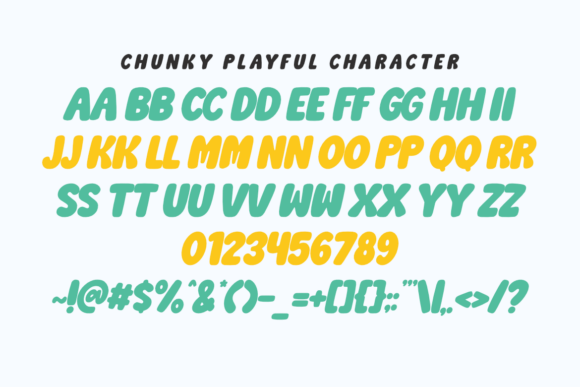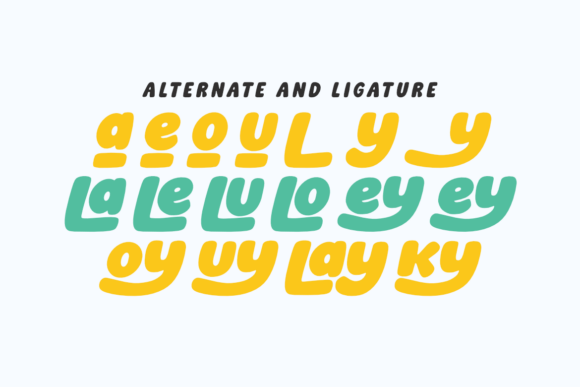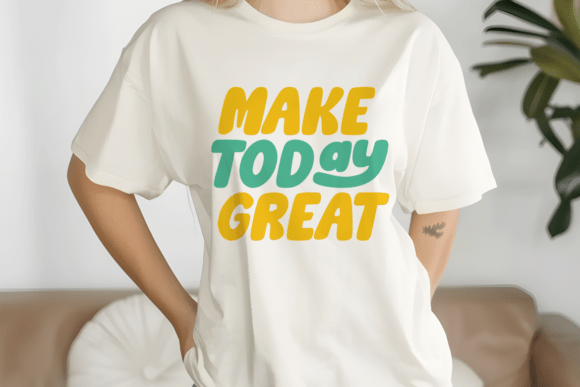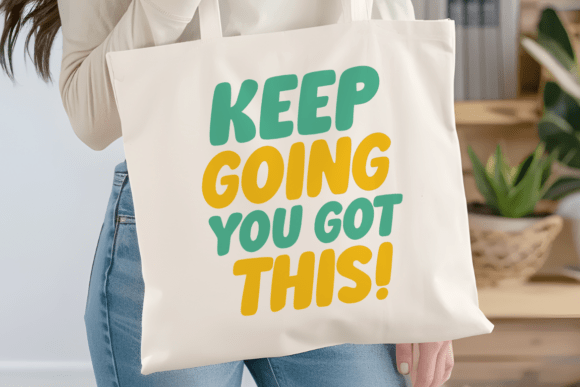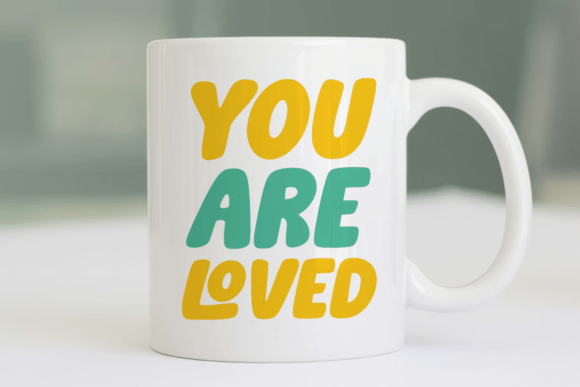
Introduction to Chunky Playful Font
As designers, we’ve all been there – staring at a blank canvas, struggling to bring our ideas to life. But what if you had the perfect tool to make your creative project stand out? Enter the Chunky Playful Font, a delightful and playful italic bubble display font that’s sure to captivate your audience.
This free download is a treasure trove of creativity, offering a high-quality design resource that’s perfect for creating eye-catching headlines, posters, and social media graphics. With its soft curves and bold appearance, the Chunky Playful Font is a versatile tool that can add a dreamy touch to any design. Whether you’re working on a personal project or a professional branding, this font is sure to bring a smile to your face and a wow factor to your design.
Key Features of Chunky Playful Font
- Unique, hand-drawn design ideal for creative projects and design resources.
- Features a transparent background, making it easy to customize and integrate into any design.
- Designed to be highly legible, even at larger font sizes, making it ideal for headings and titles.
- Resolution-independent, ensuring crisp and clear text at any size or resolution.
- Perfect for use in a variety of creative projects, including graphic design, digital art, and print media.
Honest Review: Chunky Playful Font
One of the standout features of this font is its high-quality design. The characters are well-crafted, and the lines are crisp and clean. It’s perfect for creative projects where you want to add a touch of whimsy and playfulness.
Here are some of the things that work well with the Chunky Playful Font: ✨
- It’s highly versatile and can be used in a variety of contexts, from logos to graphics to headings.
- The font is available in various weights, which makes it easy to adjust the look and feel of your design.
- It’s perfect for designs that require a lot of texture and depth.
- The font may not be suitable for designs that require a lot of precision and accuracy.
- The font may not work well on transparent backgrounds, as the characters may not be as visible.
Overall, I’m really impressed with the Chunky Playful Font. It’s a high-quality design resource that’s perfect for creative projects. I highly recommend it to anyone looking for a fun and playful font.
Tips for Getting the Most Out of Chunky Playful Font
For optimal results, pair Chunky Playful Font with a clean and simple background. Experiment with different font sizes and colors to create visual interest. This font is perfect for creating eye-catching headlines and titles for your creative project.
Chunky Playful Font is ideal for designing kids’ party invitations, children’s book covers, and educational materials. Its playful and chunky style makes it perfect for creating fun and engaging designs that appeal to children and young adults.